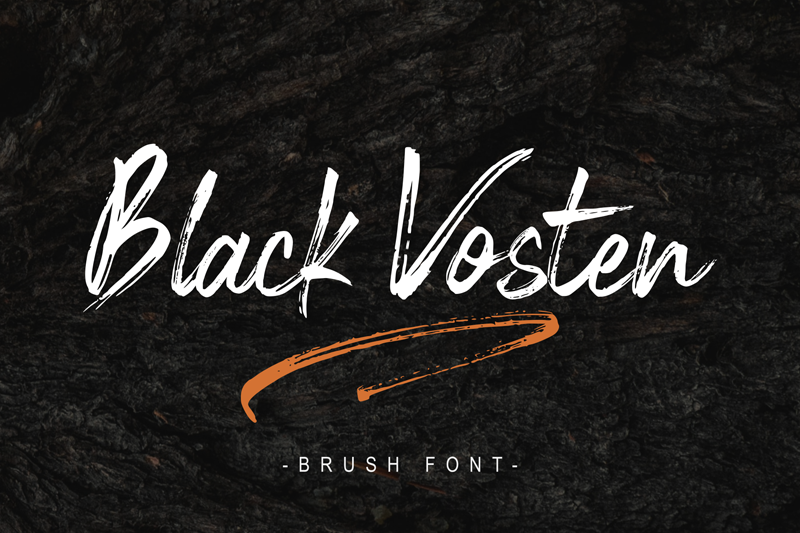
Black Vosten Font
The reason Black Vosten Font is genuinely exciting is its authentic texture, which was created by hand with a brush on paper before being digitized. This process captures the charming imperfections, subtle ink variations, and organic flow that give it a unique, believable, and unpolished edge. This level of realism makes the text pop with visceral energy, ensuring your design feels customized, handcrafted, and immediately memorable, unlike sterile, purely digital fonts.
The Black Vosten Font family typically focuses on its key style (Regular Brush Script) to deliver its signature texture and flow. However, the commercial version often includes a complementary Italic style to offer variance and emphasis within text. Furthermore, the inclusion of OpenType features like stylistic alternates and ligatures allows designers to fine-tune the hand-lettered look and avoid repetition. For a dose of authentic, high-impact script for your next project, secure your Black Vosten Font Free Download today.